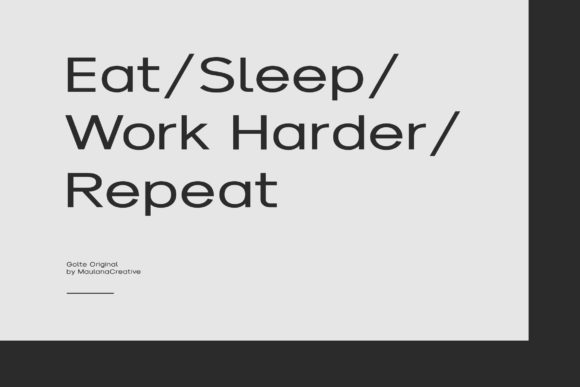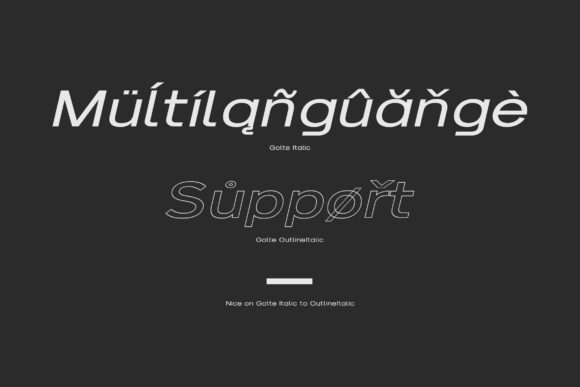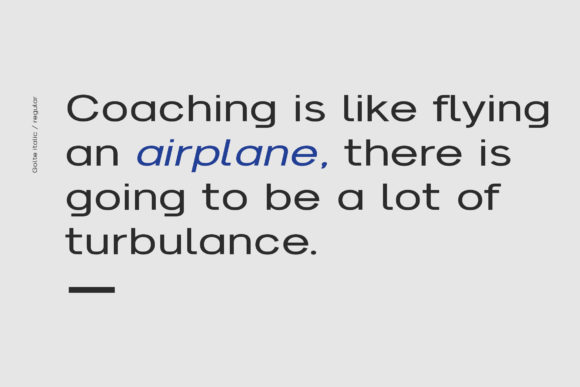
Introduction to Golte Font
Golte is a great sans serif font.
It comes packed in 4 styles and it will look particularly adept when used in logos, branding, packaging design, and much more This masterfully designed typeface is a true must-have.
Why Choose Golte Font?